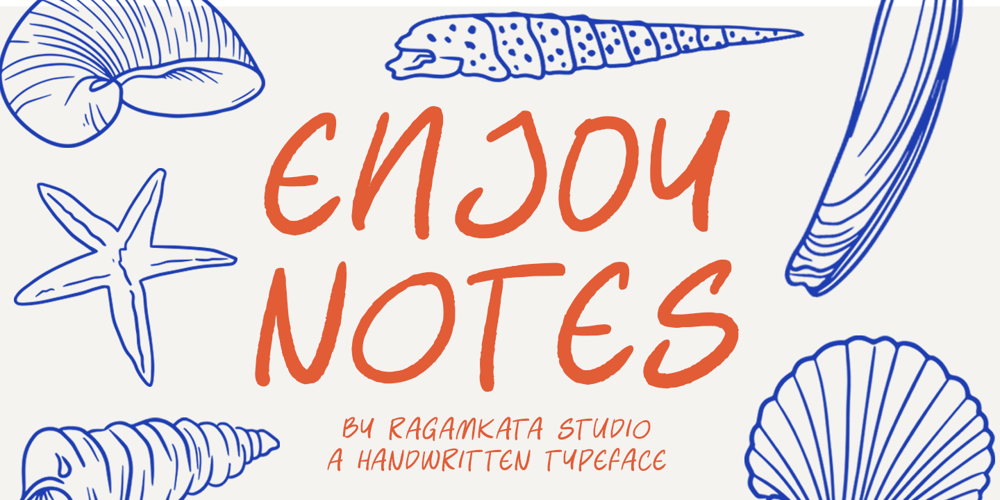
Enjoy Notes Font Family was designed by Yogiswhara Dio Prakoso Riadi and published by RagamKata. Enjoy Notes contains 1 styles and family package options. For those ultra natural-looking handwritten, jotted down notes, say hello to Enjoy Notes!Designed to look casual and carefree, but with business to take care of :)The characters consist of uppercase letters, but they differ in style for the uppercase and lowercase keystrokes, to make the font appear more like natural handwriting.Opentype double-letter ligatures are built in for you too, just turn on your ligatures setting in your design app , to see them appear as you type